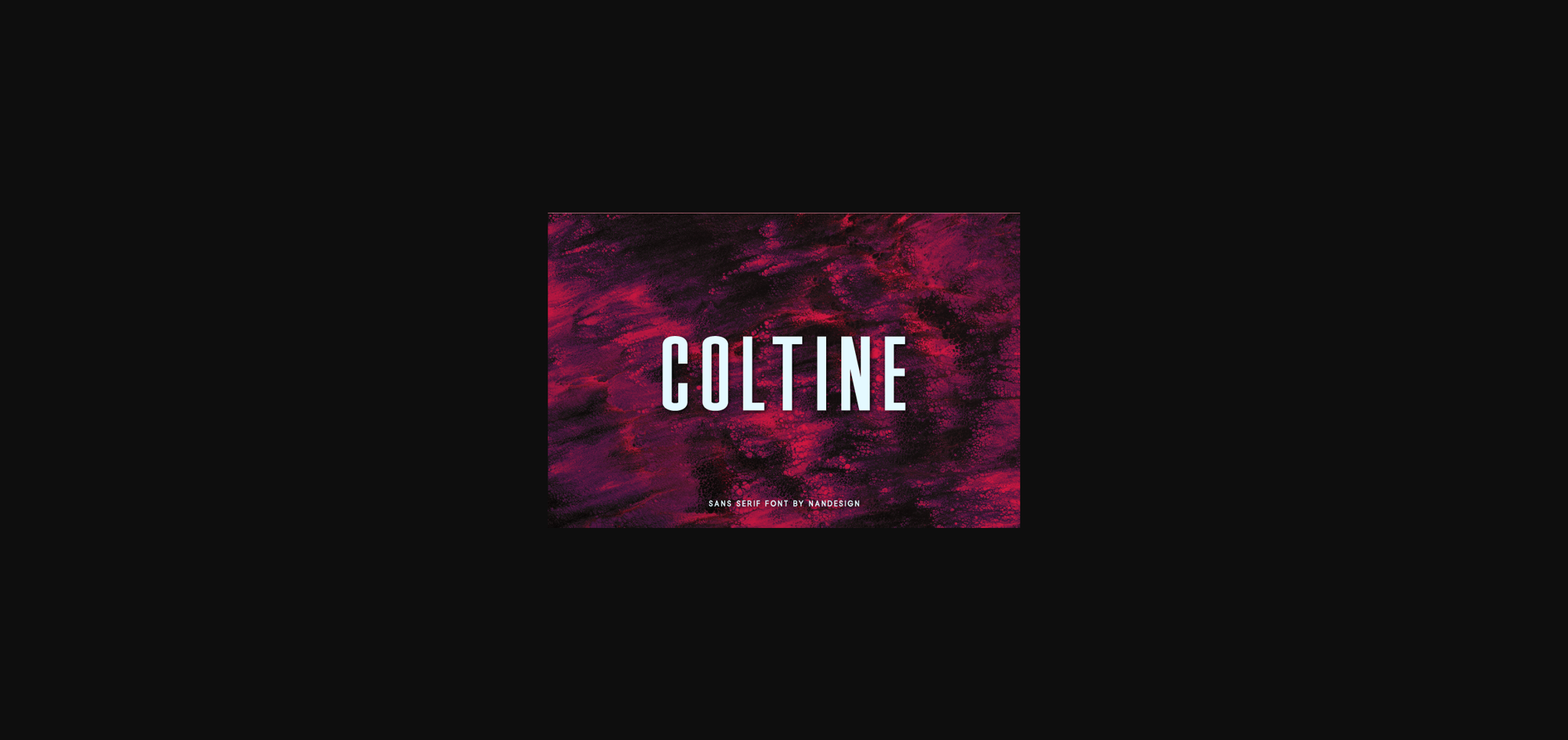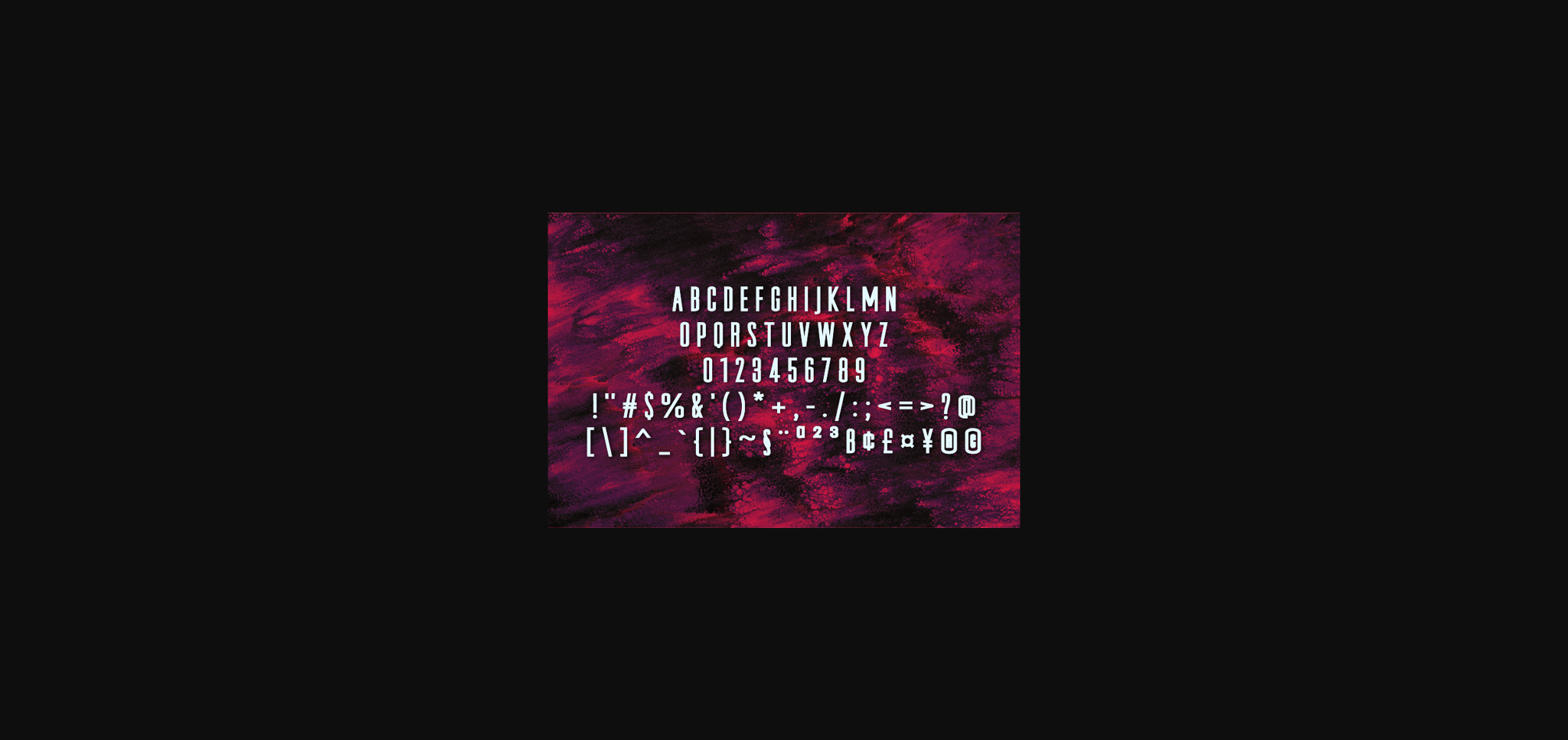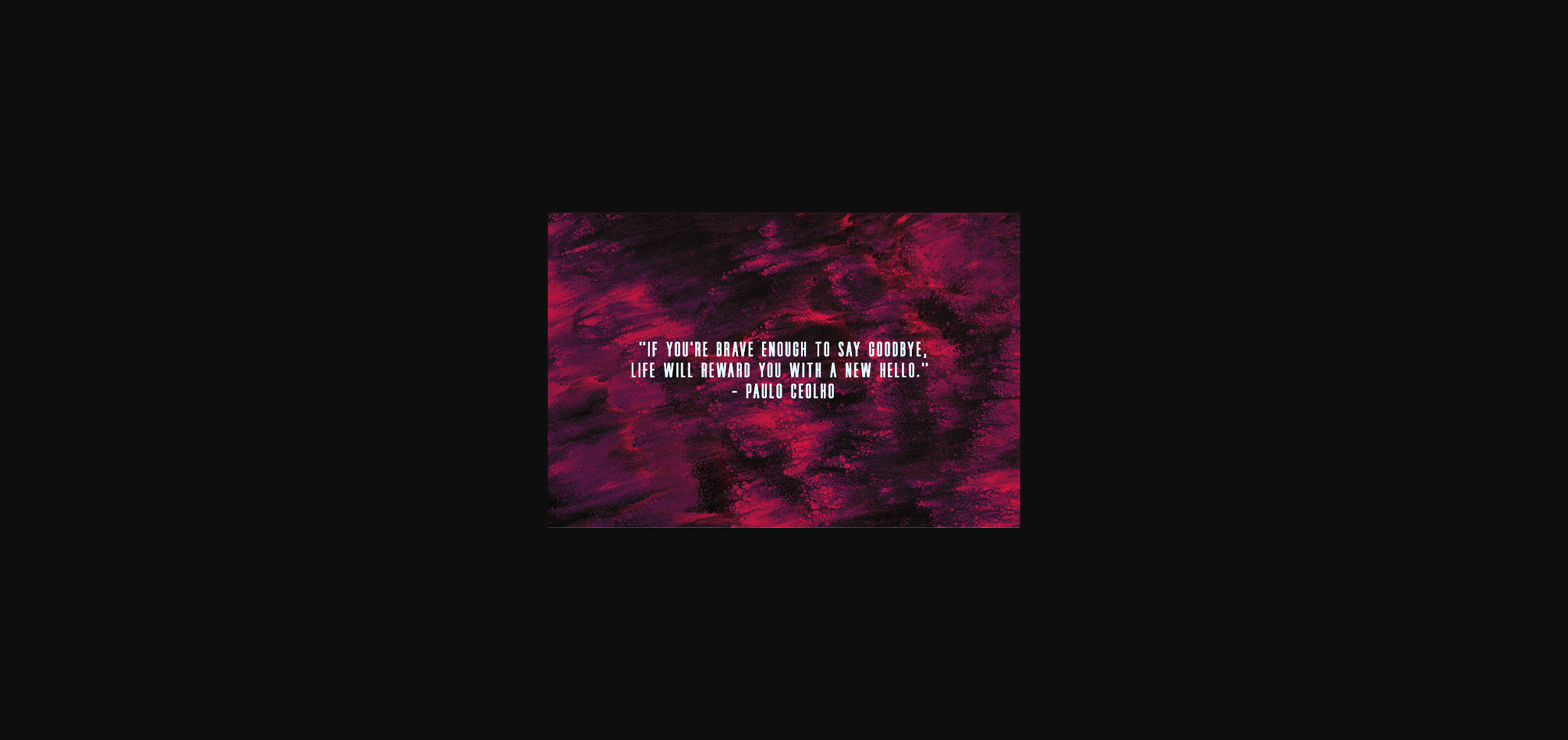
About Coltine Font
Coltine is a great sans serif font, designed to complement every project you’re currently working on.
It has a clean, thin and smooth vibe and it will be a hit for any design that you want to add it to.